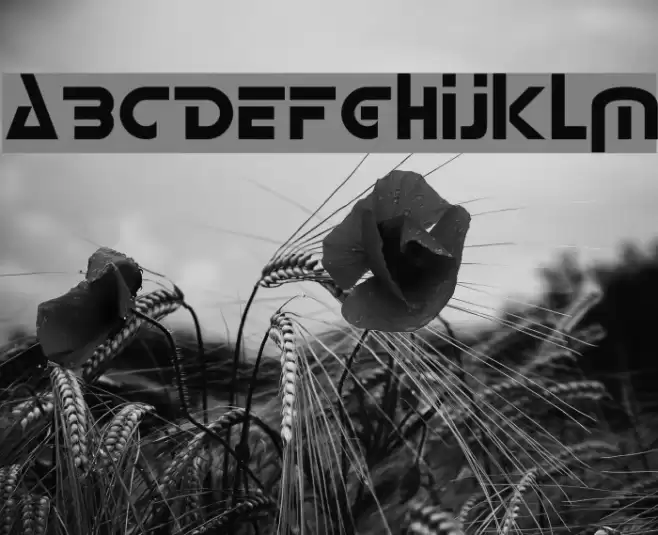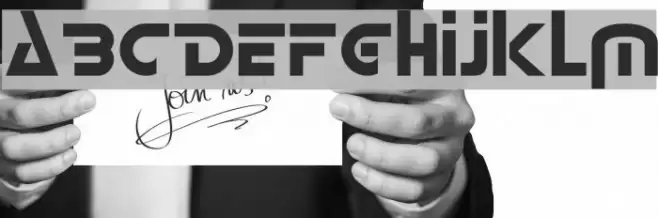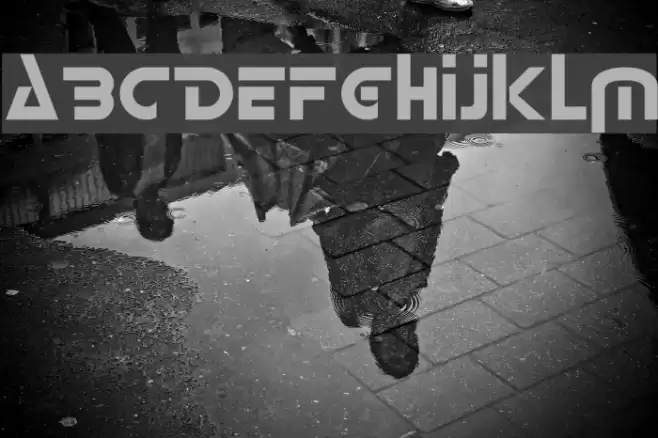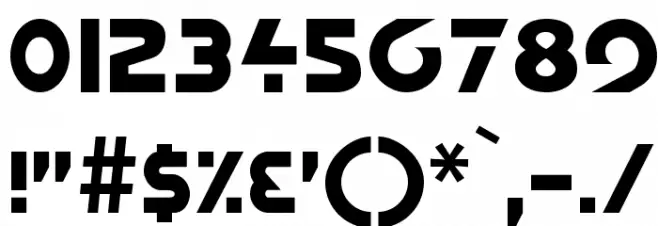
Lynx Font
Lynx Description
This font features a bold, geometric design with sharp angles and clean lines, creating a futuristic and modern appearance. The characters are constructed with a combination of straight edges and curves, giving them a unique and dynamic look. The uppercase and lowercase letters maintain a consistent style, while the numbers and special characters complement the overall design. The font's distinct style makes it suitable for attention-grabbing headlines and logos, where a strong visual impact is desired.
A bold, geometric font with a futuristic and modern style from Sci-fi fonts.
- Proposed Projects: Ideal for sci-fi themed projects, technology branding, video game titles, and modern advertising campaigns.